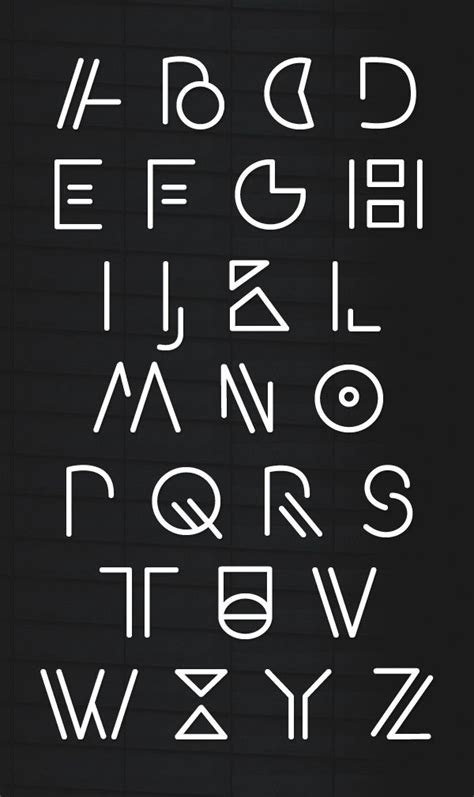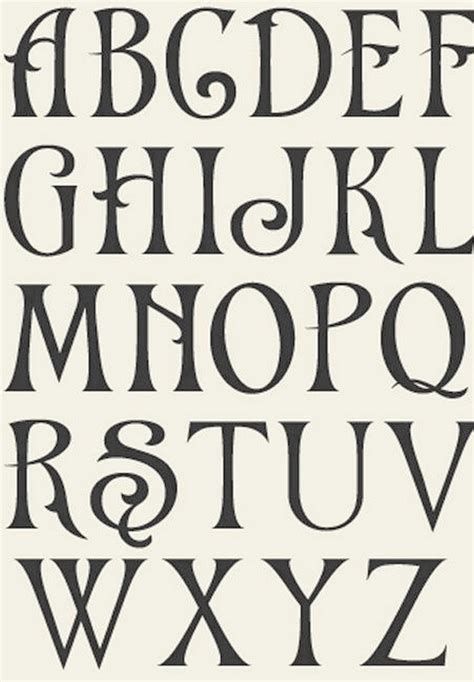
Alphabet Typography Fonts: Stylish & Unique Typefaces
Readers, have you ever found yourself staring at a design project, feeling stuck on choosing the perfect font? It's easy to get overwhelmed with the sheer number of options available. But what if I told you that there are **fonts designed specifically around the alphabet**? These fonts are **not just letters on a page; they're works of art, each letter meticulously crafted to tell a story.** And I'm here to guide you through this fascinating world!
As a writer who's constantly experimenting with typography, I've spent countless hours exploring the depths of alphabet typography. From playful script fonts to bold geometric sans-serifs, I've uncovered a universe of typefaces that can elevate any design project. Let's dive in and discover the magic of alphabet typography together!
Understanding Alphabet Typography
Before we delve into specific examples, it's essential to understand what defines alphabet typography. At its core, it's about the **intentional design of individual letters to create a cohesive and visually appealing whole.** It's about recognizing that the alphabet is not just a collection of random symbols, but a system of characters with inherent beauty and potential for artistic expression.
Think of it like this: A good alphabet font is like a well-crafted piece of architecture. Each letter is a carefully designed element that contributes to the overall harmony and aesthetic appeal of the finished product.
The beauty of alphabet typography lies in its versatility. It can be used for everything from branding and website design to book covers and even personal projects. It's a powerful tool that can enhance your visual identity and communicate your message in a unique and memorable way.
Exploring Different Styles of Alphabet Typography
The world of alphabet typography is incredibly diverse, encompassing a wide range of styles and aesthetics. Let's explore some of the most popular and captivating categories:
Script Typography
Script fonts are inspired by the flowing strokes of handwriting. They often feature elegant curves, flourishes, and ligatures (connected letters), evoking a sense of personality and artistry.
Here are some characteristics of script fonts:
- Fluid and organic
- Evokes a sense of handwritten elegance
- Perfect for adding a touch of class and sophistication
Examples of popular script fonts include:
- Brush Script
- Pacifico
- Allura
Sans-Serif Typography
Sans-serif fonts are known for their clean, modern look, lacking the decorative strokes (serifs) found in serif fonts. They're often associated with minimalism, clarity, and readability. They can be bold and assertive, or subtle and understated, depending on the specific design.
Here are some characteristics of sans-serif fonts:
- Simple and modern
- Highly legible and versatile
- Suitable for digital and print applications
Examples of popular sans-serif fonts include:
- Helvetica
- Arial
- Roboto
Geometric Typography
Geometric fonts are characterized by their sharp angles, straight lines, and structured forms. They often resemble geometric shapes, like circles, squares, and triangles, lending a sense of order and precision to the design.
Here are some characteristics of geometric fonts:
- Modern and futuristic
- Strong and bold characters
- Excellent for branding and headlines
Examples of popular geometric fonts include:
- Futura
- Gill Sans
- Avant Garde
Display Typography
Display fonts are designed to make a statement. They often have bold, unusual shapes, large x-heights, and unique letterforms. Their purpose is to grab attention and convey a specific mood or emotion. They're commonly used for headlines, logos, and other visual elements where visual impact is paramount.
Here are some characteristics of display fonts:
- Bold and attention-grabbing
- Unconventional and expressive
- Perfect for making a lasting impression
Examples of popular display fonts include:
- Impact
- Bebas Neue
- Blackout
Exploring the History of Alphabet Typography
The evolution of alphabet typography is a fascinating journey through history. Here's a chronological timeline:
- **Ancient Egypt (3000 BCE):** The Egyptians developed hieroglyphics, a system of writing that used picture-like symbols to represent words and ideas.
- **Ancient Greece (8th Century BCE):** The Greeks developed the first true alphabet, using letters to represent sounds. Early Greek alphabets were primarily written in capitals, which later evolved into lowercase letters.
- **Roman Empire (1st Century BCE):** The Romans adopted and refined the Greek alphabet, creating the Roman alphabet that forms the basis of most modern European languages.
- **Middle Ages (476-1485 CE):** During the Middle Ages, monks painstakingly copied manuscripts, often using decorative designs and intricate lettering. This period saw the birth of calligraphy, the art of beautiful writing.
- **The Printing Press (15th Century):** The invention of the printing press by Johannes Gutenberg revolutionized the world of typography. Mass production made books and other printed materials more accessible, leading to a growth in demand for different typefaces.
- **The Industrial Revolution (18th-19th Centuries):** The Industrial Revolution brought about significant advancements in printing technologies, leading to a wider range of typefaces and increased experimentation with design.
- **The Computer Age (20th Century):** The advent of computers and digital technologies transformed the world of typography. Digital fonts became widely available, and designers gained access to a vast library of typefaces at their fingertips.
Tips for Choosing the Right Alphabet Typography
Now that you have a better understanding of alphabet typography, let's explore some tips for selecting the perfect fonts for your projects:
Consider Your Audience
The target audience for your design project will influence your font choice. For example, if you're designing a website for a children's toy company, a playful and whimsical font is appropriate. For a corporate website, a more professional and sophisticated font is recommended.
Understand the Message
The message you want to convey is crucial in font selection. A bold, geometric typeface might be ideal for conveying strength and power, while a delicate script font can evoke a sense of elegance and femininity.
Analyze the Context
The context of your design project (e.g., a website, a brochure, a poster) will also inform your font choice. A font that works well for a website might not be suitable for print materials. Consider the size of the text, the layout, and the overall design aesthetics.
Don't Overwhelm with Too Many Fonts
While exploring various fonts is exciting, it's essential to maintain balance. Using too many fonts can create a cluttered and confusing design. Ideally, stick to a maximum of two or three fonts per project for a harmonious and cohesive look.
Experiment with Different Combinations
Don't be afraid to experiment with various font combinations. Playing around with different typefaces can lead to unexpected and inspiring results. Try pairing serif fonts with sans-serif fonts, or blending script fonts with geometric fonts for a unique visual impact.
Where to Find Free and Premium Alphabet Typography Fonts
Now that you're ready to embark on your alphabet typography adventure, you need to know where to find the perfect fonts. Here are some popular sources:
Free Font Websites
Free font websites offer a vast collection of free fonts for personal and commercial use.
- **Google Fonts:** Offers a curated selection of high-quality fonts, all free for commercial use.
- **Font Squirrel:** A comprehensive repository of free fonts, with a user-friendly interface and extensive filtering options.
- **DaFont:** Another popular site for free fonts, featuring a wide range of styles and categories.
Premium Font Foundries
Premium font foundries offer a curated selection of high-quality fonts, often designed by renowned typographers. These fonts come with a price tag but are worth the investment for projects that require exceptional design.
- **Adobe Fonts:** Offers a subscription-based service with access to a vast library of premium fonts.
- **MyFonts:** A marketplace for fonts, featuring a wide selection from independent designers and established foundries.
- **Fonts.com:** Another popular marketplace for fonts, providing a comprehensive selection of premium fonts for various design needs.
Alphabet Typography: A Creative Playground
Exploring the world of alphabet typography is an exciting journey of creativity. From the elegance of script fonts to the boldness of geometric sans-serif fonts, each typeface has its own personality and potential to elevate your designs. Remember, the most important thing is to choose fonts that align with your message, your audience, and your design goals.
Frequently Asked Questions About Alphabet Typography
What makes alphabet typography so important?
Alphabet typography is vital because it shapes how we perceive and interpret written information. A well-designed typeface can enhance readability, convey specific emotions, and create a memorable visual impact. It's essential for building brand identity, creating engaging website designs, and crafting visually appealing print materials.
How can I improve my understanding of alphabet typography?
There are several ways to deepen your appreciation for alphabet typography. Explore online resources like typography blogs, websites, and forums. Attend design workshops or take online courses focused on typography. Experiment with different fonts in your own design projects and pay attention to how they impact the overall aesthetic.
What are some resources for learning more about alphabet typography?
There are many fantastic resources for learning more about alphabet typography. Here are a few suggestions:
- **The "Typography for the Web" book by Jeffery Zeldman:** Offers a comprehensive guide to typography specifically for web designers.
- **The "Thinking with Type" book by Ellen Lupton:** Provides a visual and conceptual exploration of the history, principles, and practices of typography.
- **The "Fonts in Use" website:** Offers a curated collection of typefaces used in various design projects, providing inspiring examples and insights.